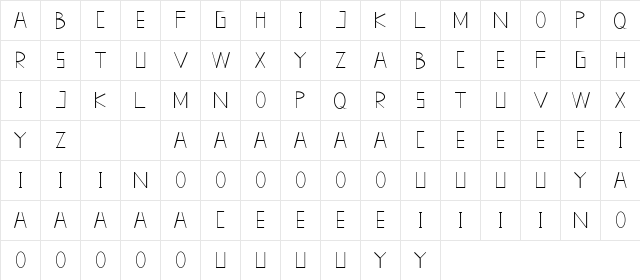
New GLADISHdemo Fancy
| Style | Fancy |
| Foundry | Edric Studio |
| Designer | Sailla nurissalma |
Design Context for New GLADISHdemo Typeface
New GLADISHdemo takes a measured approach to typography — its balanced proportions and neutral character make it a reliable workhorse for both digital and print work.